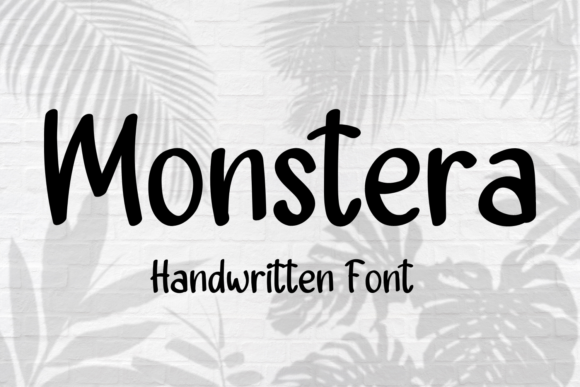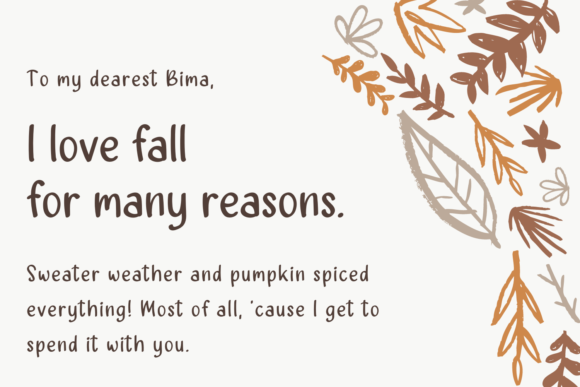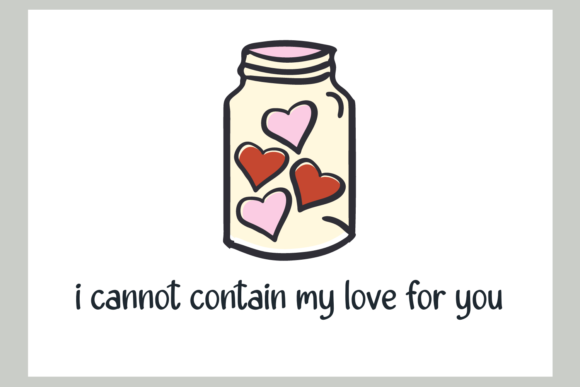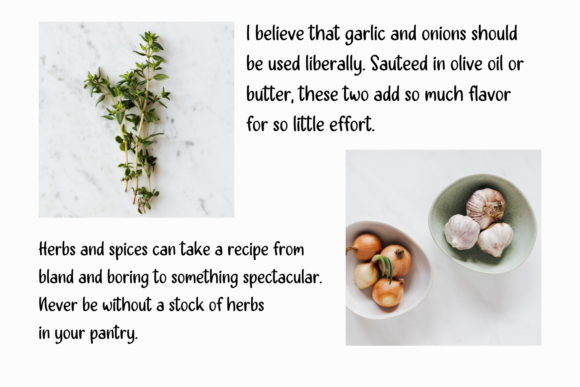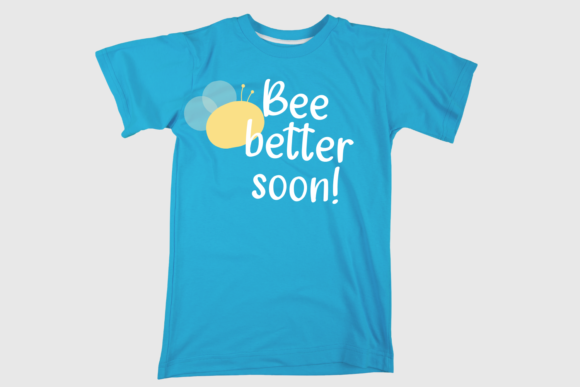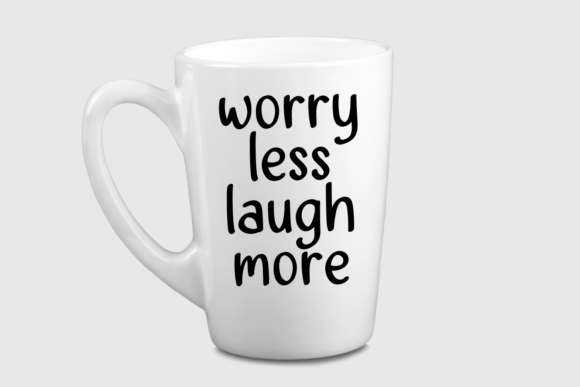
About Monstera Font
Monstera is a charming and casual handwritten font with a touch of natural elegance. Its trendy style makes it a versatile choice for a wide range of design projects, from social media graphics and quotes to product packaging and branding materials.
With its handcrafted appeal, Monstera adds a personal and authentic feel to your designs. It’s perfect for creating eye-catching social media posts, blog headers, and website banners that stand out and capture attention. The font’s casual and approachable vibe also makes it ideal for crafting invitations, greeting cards, and stationery with a laid-back yet stylish look.
Monstera’s natural flow and handwritten appearance lend themselves well to lifestyle designs, travel blogs, and fashion-related projects. It’s a font that complements modern aesthetics and exudes a sense of simplicity and creativity.
Furthermore, Monstera’s versatility allows it to shine in both digital and print materials. Whether you’re designing posters, flyers, or product labels, this font will elevate your creations and add a touch of artistic flair.
Incorporate Monstera into your design toolkit and discover how it can add a trendy and natural touch to your projects. Embrace its casual and effortless charm to create designs that feel approachable and visually captivating.